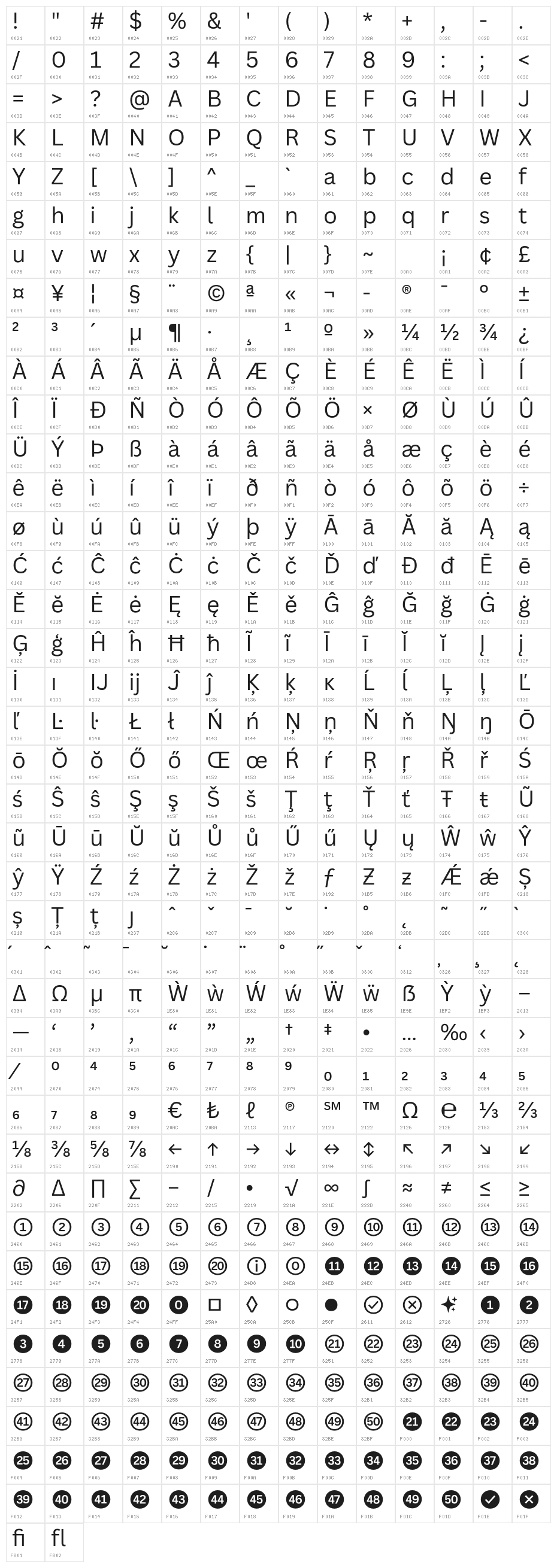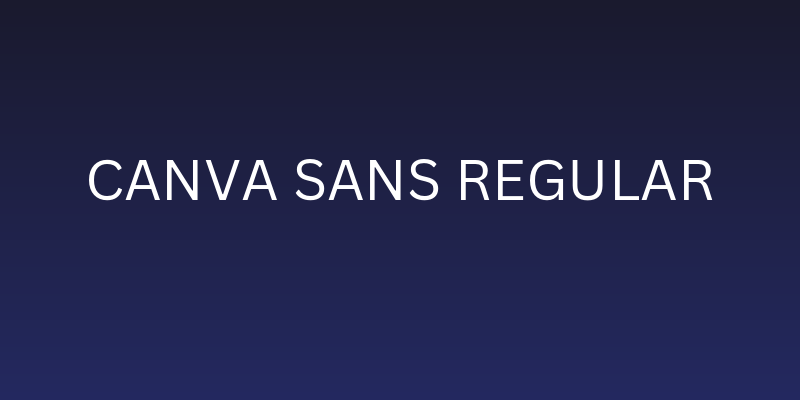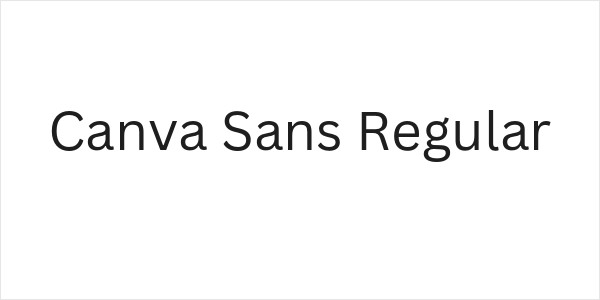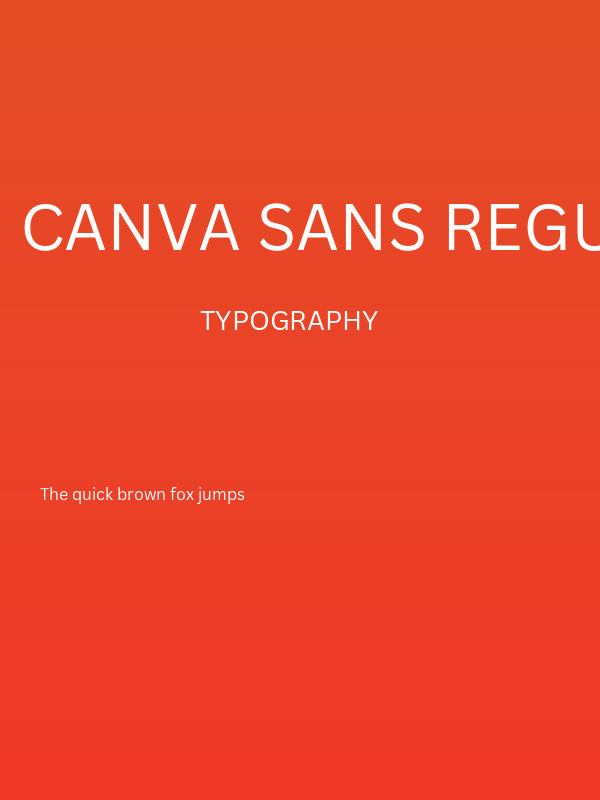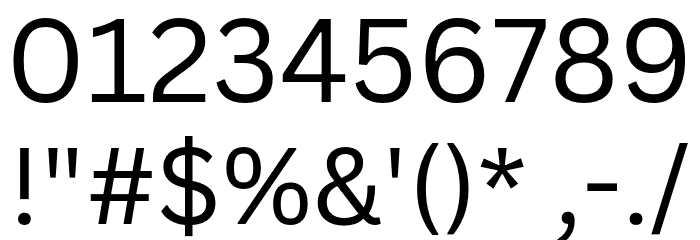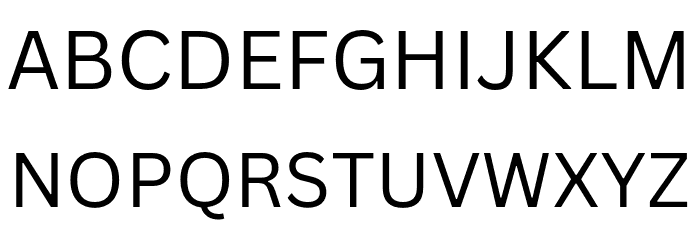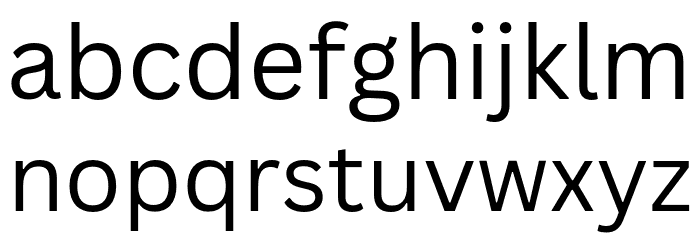
Canva Sans Regular Font
Canva Sans Regular Description
This font features a clean and modern sans-serif design, characterized by its simplicity and readability. The letterforms are well-proportioned with a consistent stroke width, providing a balanced and harmonious appearance. The uppercase and lowercase letters are distinct, with rounded edges that soften the overall look. The numerals are clear and legible, making them suitable for various applications. Special characters are included, maintaining the font's cohesive style. Its versatility makes it ideal for both digital and print media, ensuring clarity and professionalism in any context.